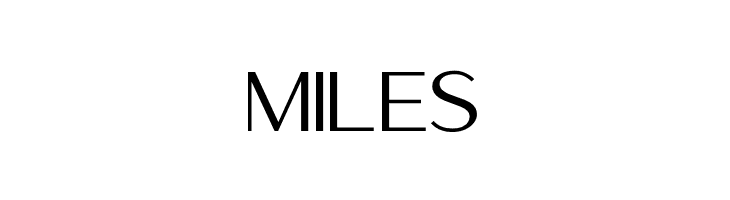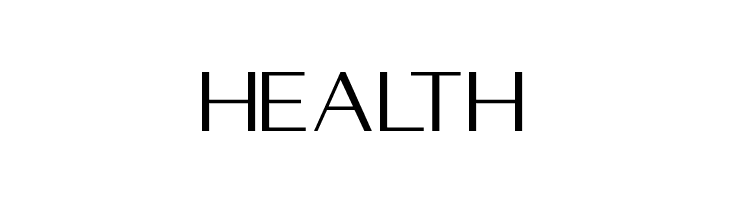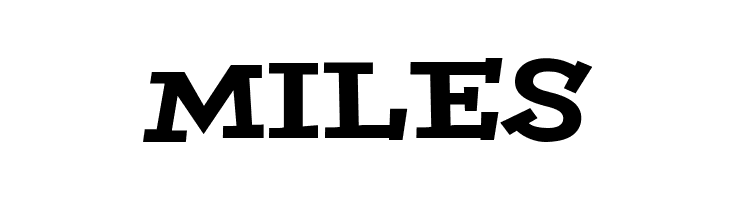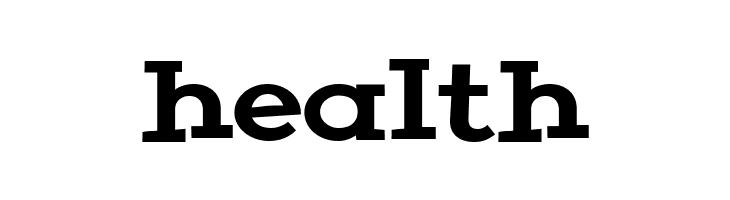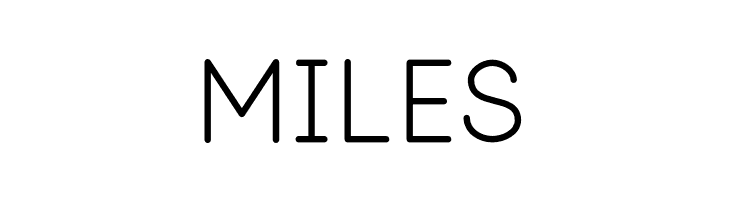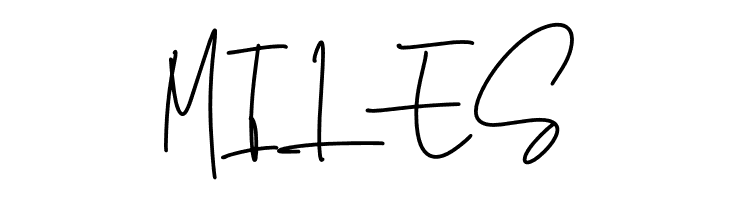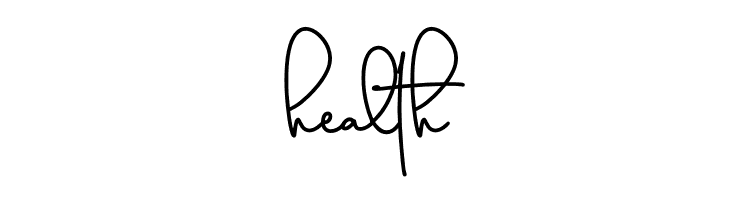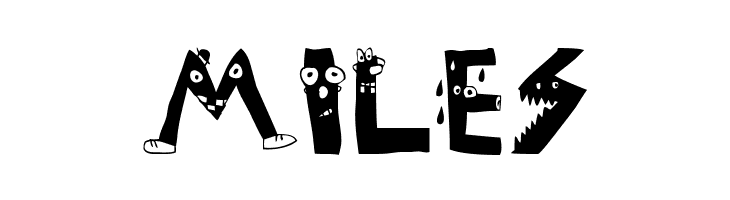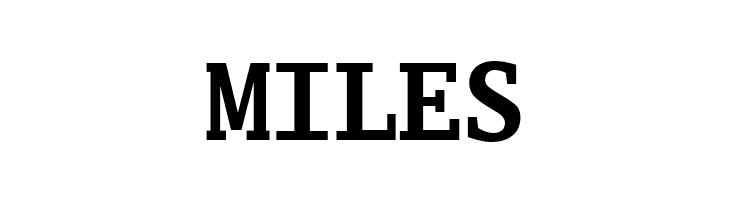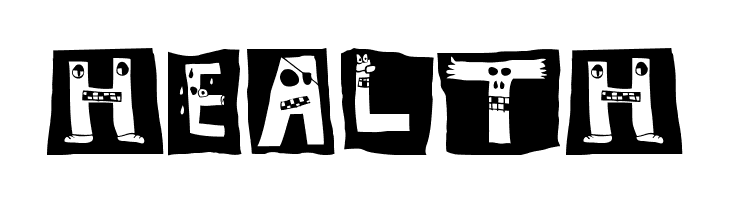
A bold, geometric font with a modern and versatile style.
A fluid, handwritten-style font with a personal and elegant touch.
A casual, handwritten font with a fluid, signature-like style.
A modern, rounded sans-serif font with uniform strokes and excellent readability.
An elegant and flowing script font with graceful curves and fluid strokes.
A bold, cursive script font with expressive, flowing strokes.
A classic and elegant font with clean lines and balanced proportions.
A whimsical and decorative font with elegant loops and cursive elements.
A modern, elegant font with thin, elongated letterforms and subtle curves.
A dynamic, handwritten font with an expressive and artistic style.
A bold, geometric font with a futuristic and modern design.
A bold, geometric font with a double-line structure and modern appeal.
A lively and energetic script font with fluid, interconnected strokes.
A lively and dynamic script font with elegant loops and fluid strokes.
A dynamic script font with fluid, connected strokes and a handwritten style.
A clean, modern font with balanced structure and consistent stroke width.
A bold, geometric font with calligraphic influences and a modern aesthetic.
A bold, geometric font with strong strokes and sharp angles.
An elegant and sophisticated cursive script font with decorative swirls.
A classic serif font with elegant strokes and a traditional aesthetic.
A fluid and elegant script font with smooth, flowing lines.
A whimsical font with characters embedded in cartoon cat designs.
A bold, expressive script font with a playful and energetic style.
A playful and whimsical script font with flowing, hand-drawn curves.